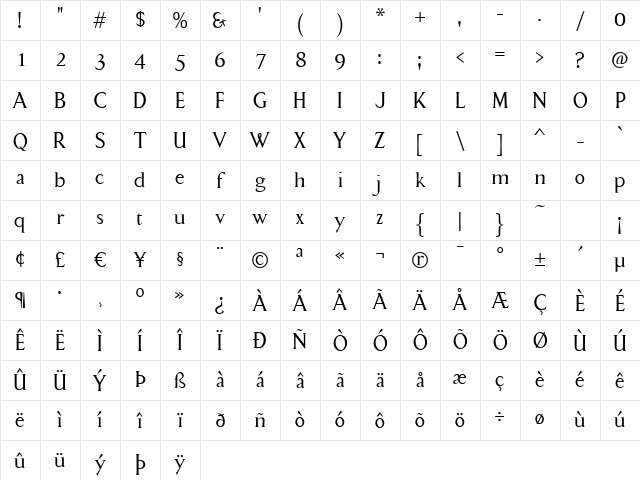
Complete Anarcharsis Basic HF Regular glyph index. Displaying only characters natively supported by Anarcharsis Basic HF Regular font.
Anarcharsis Basic HF is a composed and adaptable typeface that performs quietly and consistently across a wide range of design contexts.